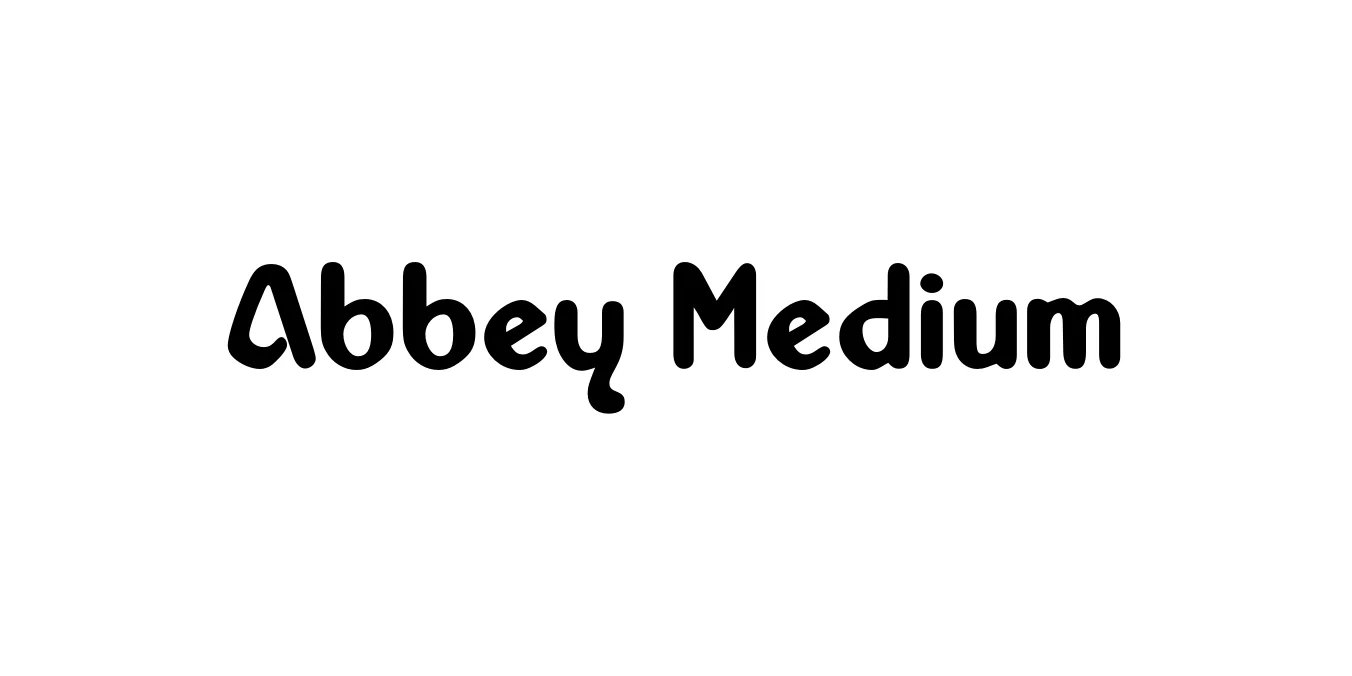
Abbey Medium
Designed by Alan Meeks
Abbey Medium is a distinguished humanist sans-serif typeface that was originally part of the Letraset library. Designed by the prolific Alan Meeks, it carries a balanced architecture that bridges the gap between mid-century geometric styles and classical calligraphic influences. The font is characterized by its open apertures and slight variation in stroke thickness, which imbues the letterforms with a warmth and legibility often missing in more rigid grotesque typefaces.
Throughout its history, Abbey Medium has been favored for its versatility and professional demeanor. It emerged during an era where clarity in display typography was paramount, making it a popular choice for advertising and corporate communications. Even in the digital age, it remains a favorite for designers who require a clean, approachable aesthetic that works harmoniously across both high-resolution print and screen-based interfaces.
Abbey Medium Best Uses
Perfect for bold titles and section headers in both print and digital layouts.
Provides a professional and timeless look for brand identities and corporate marks.
Excellent for magazine layouts, brochures, and short descriptive text blocks.